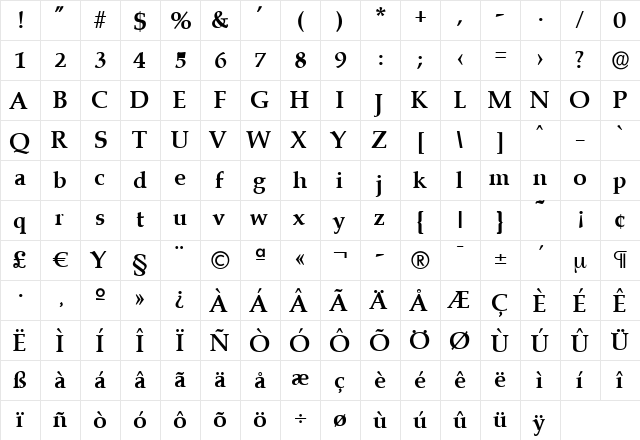
JoelBecker Bold
Design Context for JoelBecker Typeface
JoelBecker offers clean, dependable letterforms without strong stylistic allegiance, making it a practical choice for designers who need flexibility. Its bold stroke weight gives it real presence on the page.
Pro Tip: Use JoelBecker in both headline and body roles to test its range before committing to a single application.